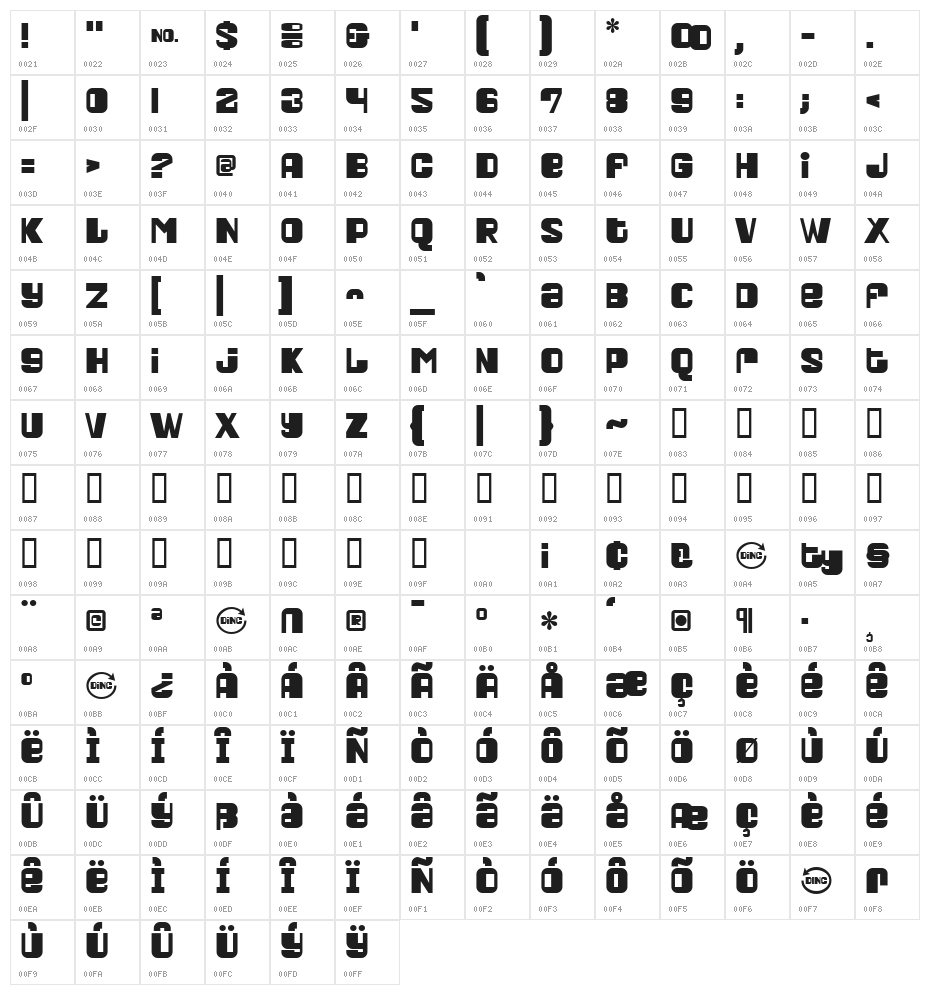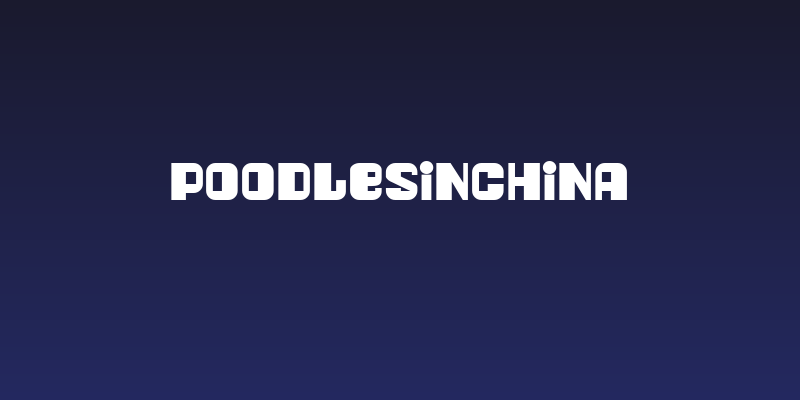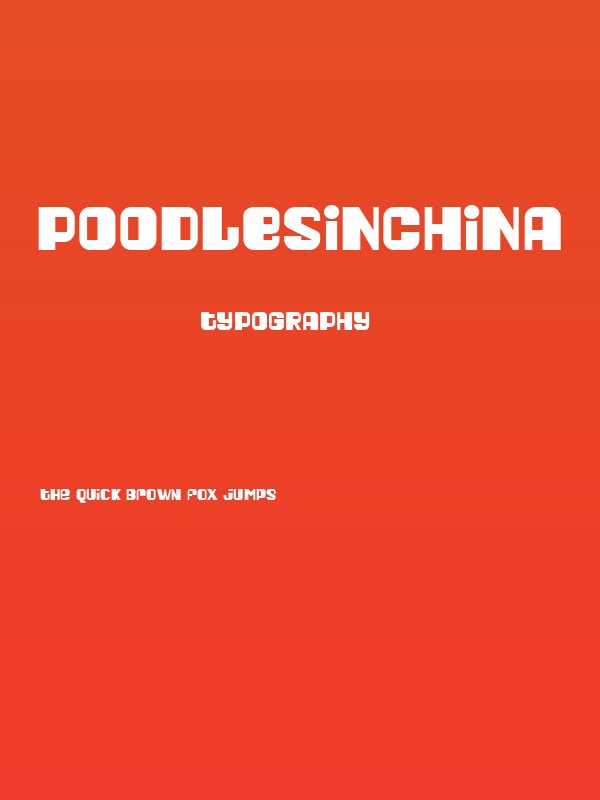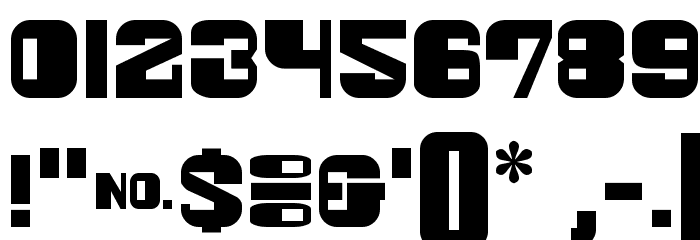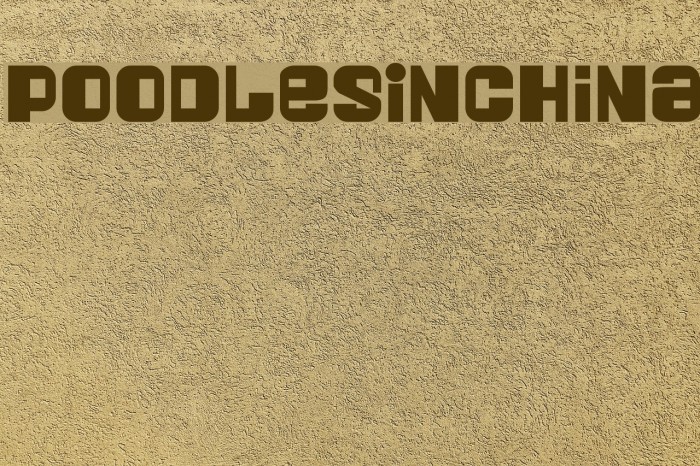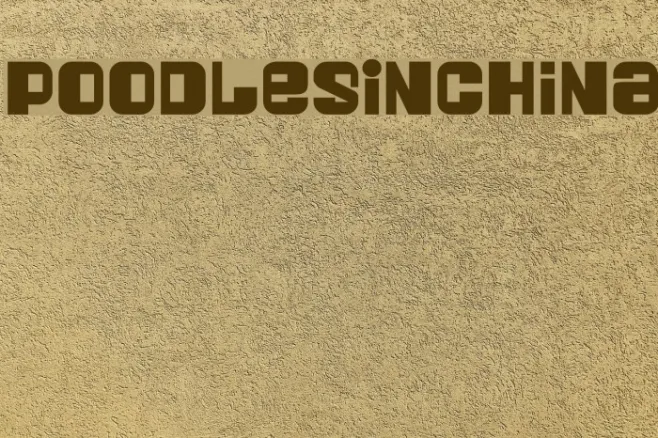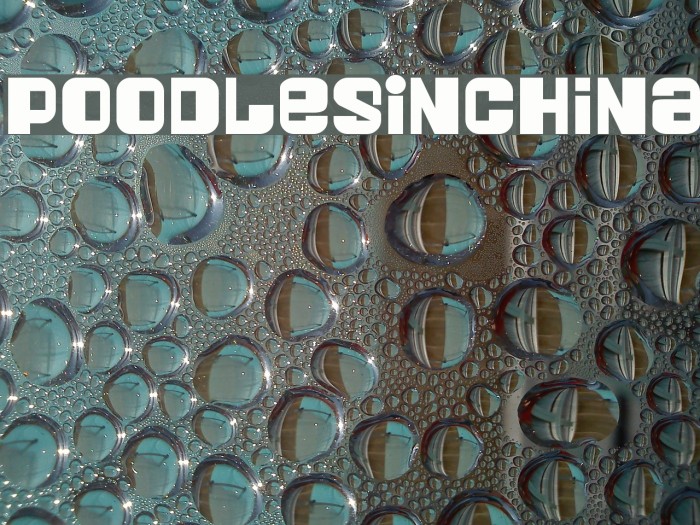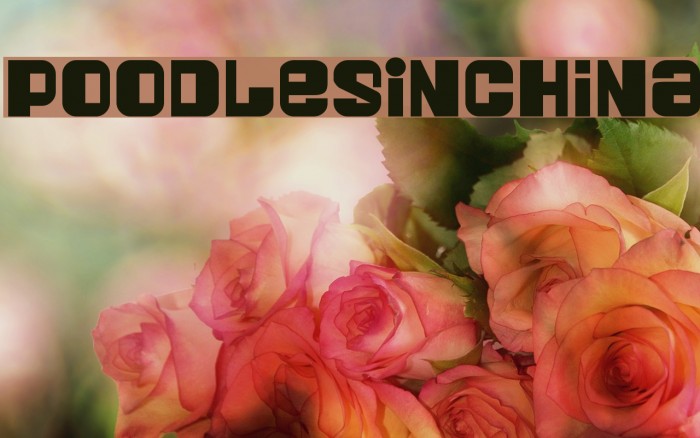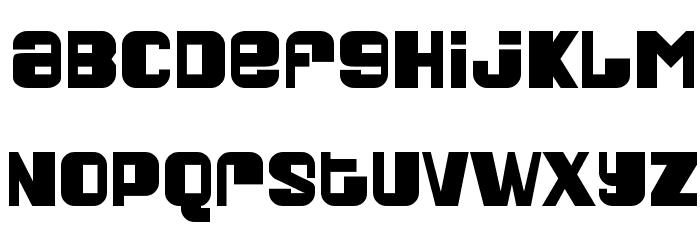
PoodlesInChina Font
PoodlesInChina Description
This font features a bold and striking design with a strong geometric influence. The characters are blocky and robust, with a uniform thickness that gives them a powerful presence. The uppercase and lowercase letters share a consistent style, maintaining a cohesive look throughout. The numerals are equally bold, ensuring they stand out in any context. Special characters are designed with the same attention to detail, making them easily recognizable and visually appealing. This font's design is ideal for making a statement, with its thick strokes and clear, legible forms.